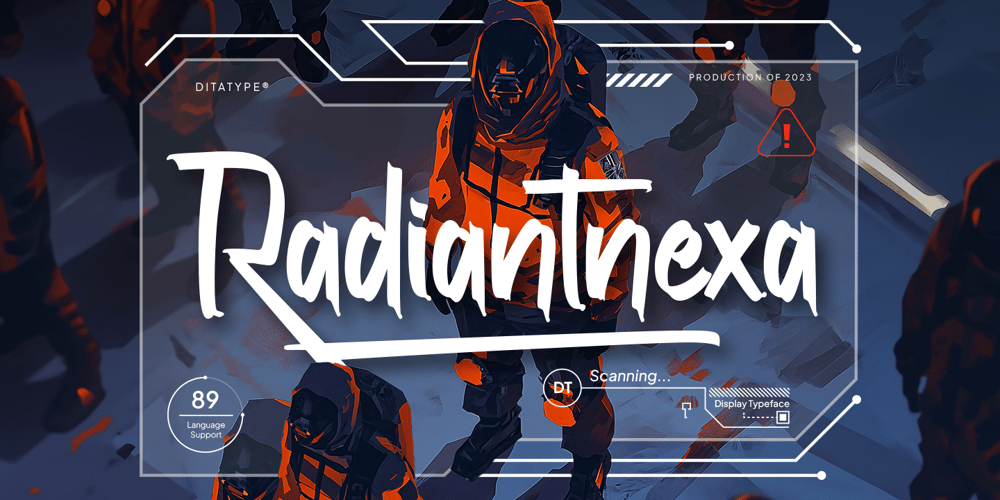
Radiantnexa Font Family was designed by Donis Miftahudin and published by Ditatype. Radiantnexa contains 1 styles and family package options. Radiantnexa is a visionary display font that seamlessly merges futuristic aesthetics with the elegance of script typography. As its core, Radiantnexa embodies the essence of futurism, featuring clean lines, sharp angles, and a sleek, minimalist design. This futuristic style lends the font a sense of innovation and forward-thinking.On the other side, its subtle touch of script elements, which adds a hint of warmth and personality to the otherwise futuristic design. These script-inspired details soften the geometric shapes of the font, creating a unique juxtaposition of sleek modernity and organic fluidity. Enjoy the features here.Features: Ligatures Stylistic Sets Multilingual Supports PUA Encoded Numerals and Punctuations Radiantnexa fits in headlines, logos, posters, flyers, technology branding, sci-fi book covers, futuristic UI/UX design, editorial layouts, and many more designs. Find out more ways to use this font by taking a look at the font preview.Thanks for purchasing our fonts. Hopefully, you have a great time using our font. Feel free to contact us anytime for further information or when you have trouble with the font. Thanks a lot and happy designing.